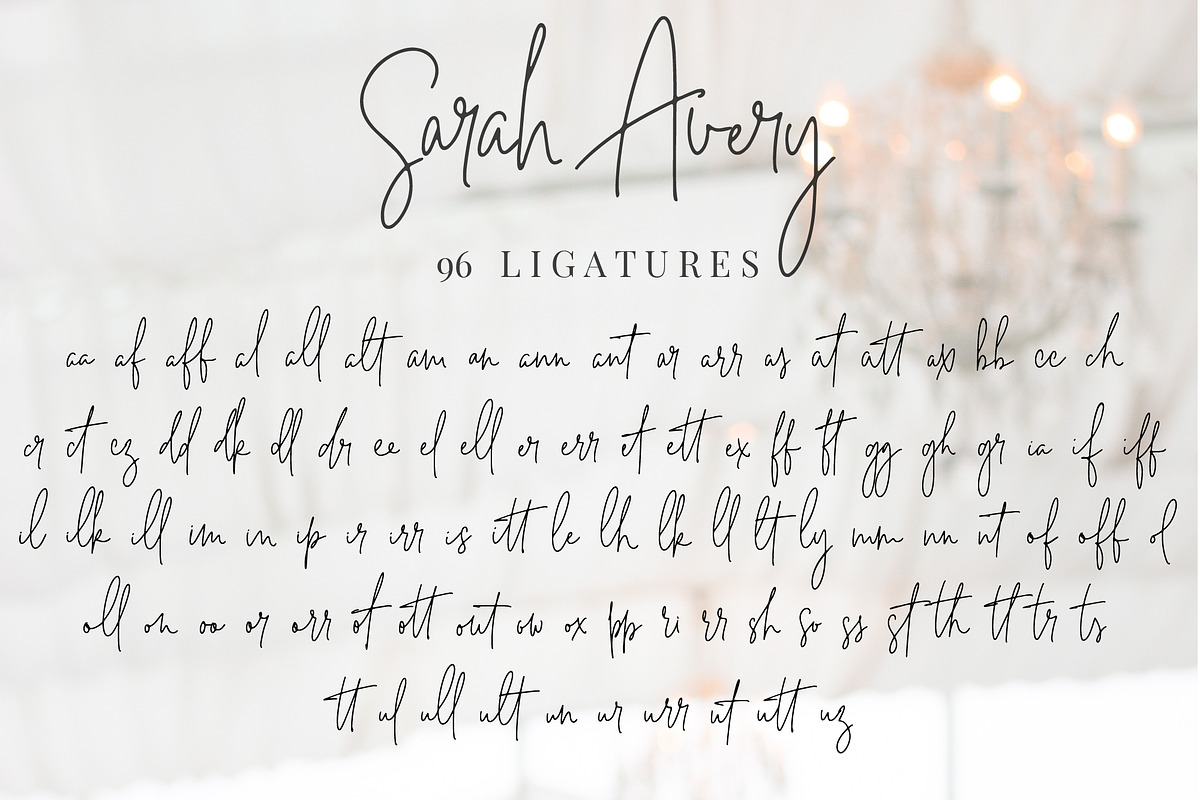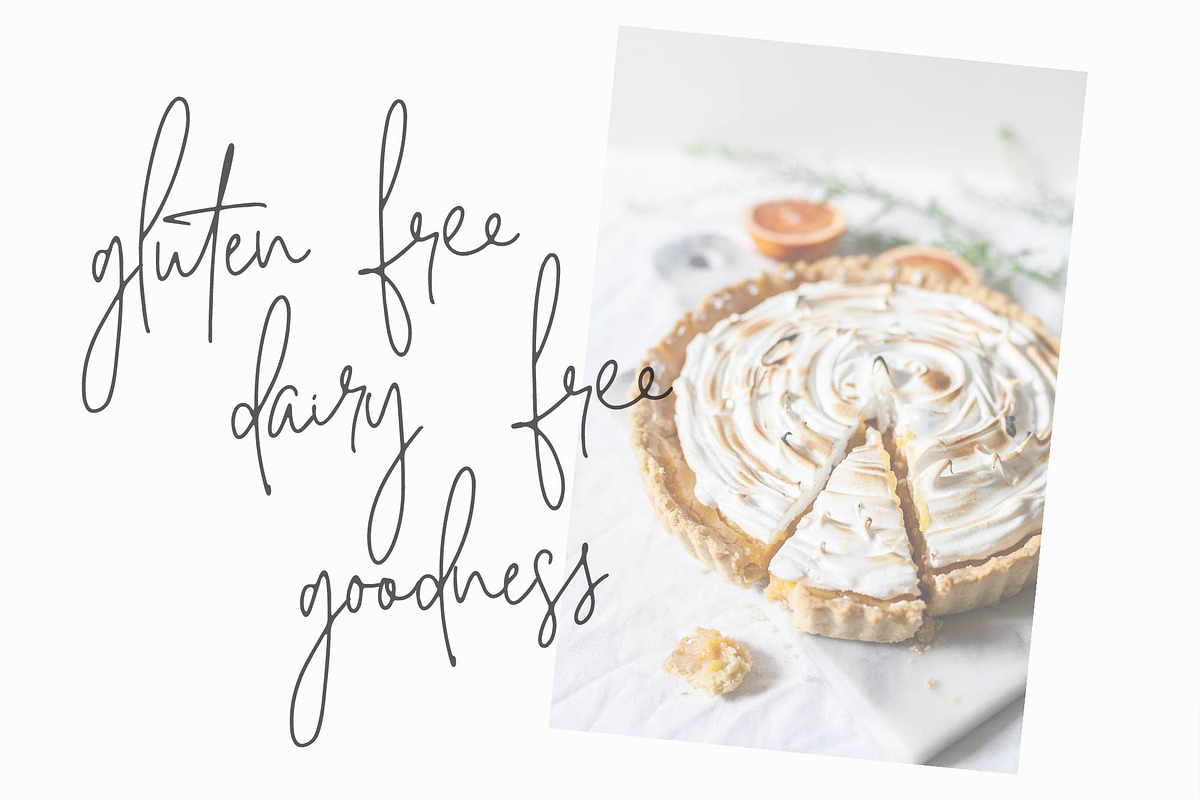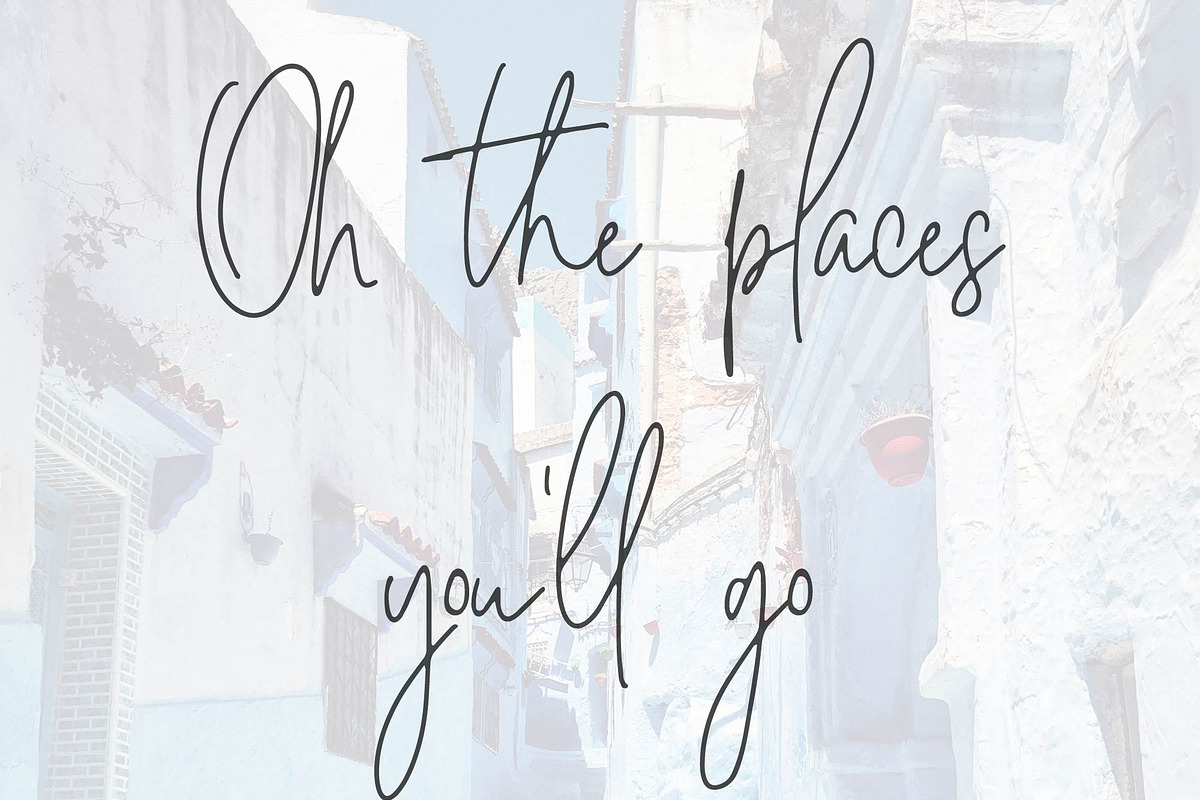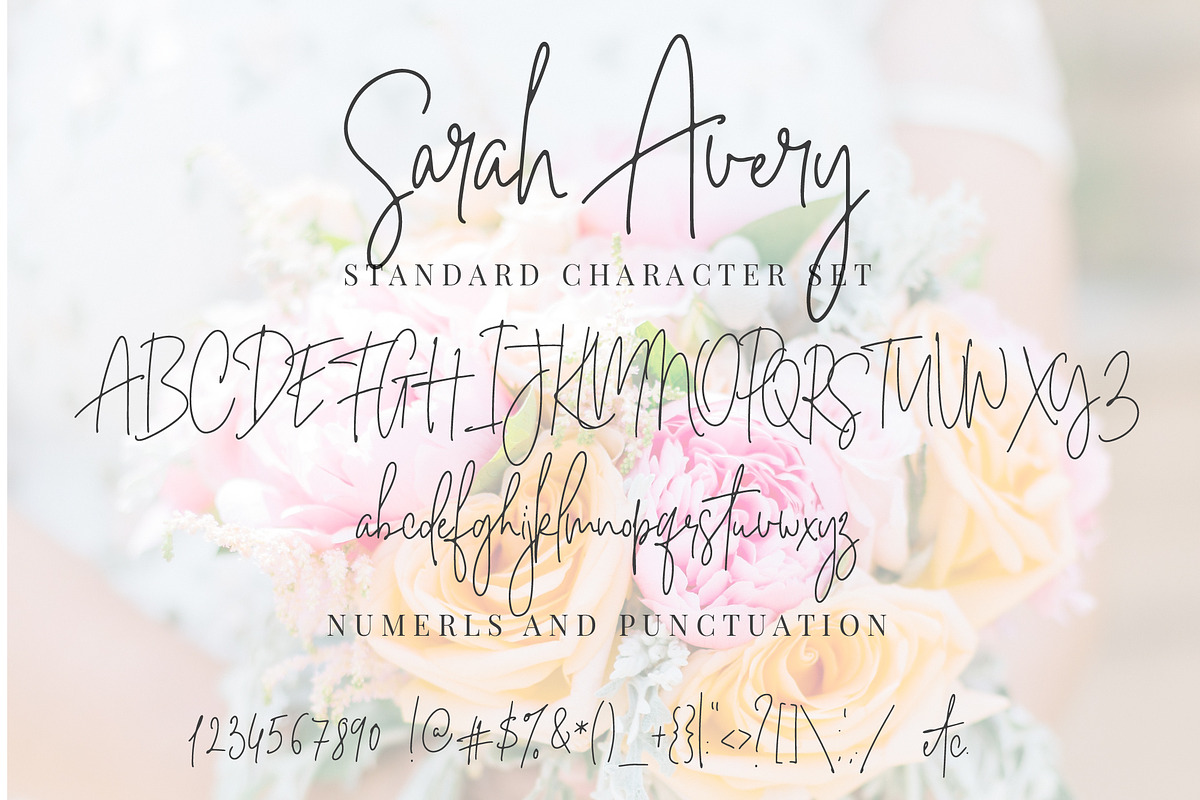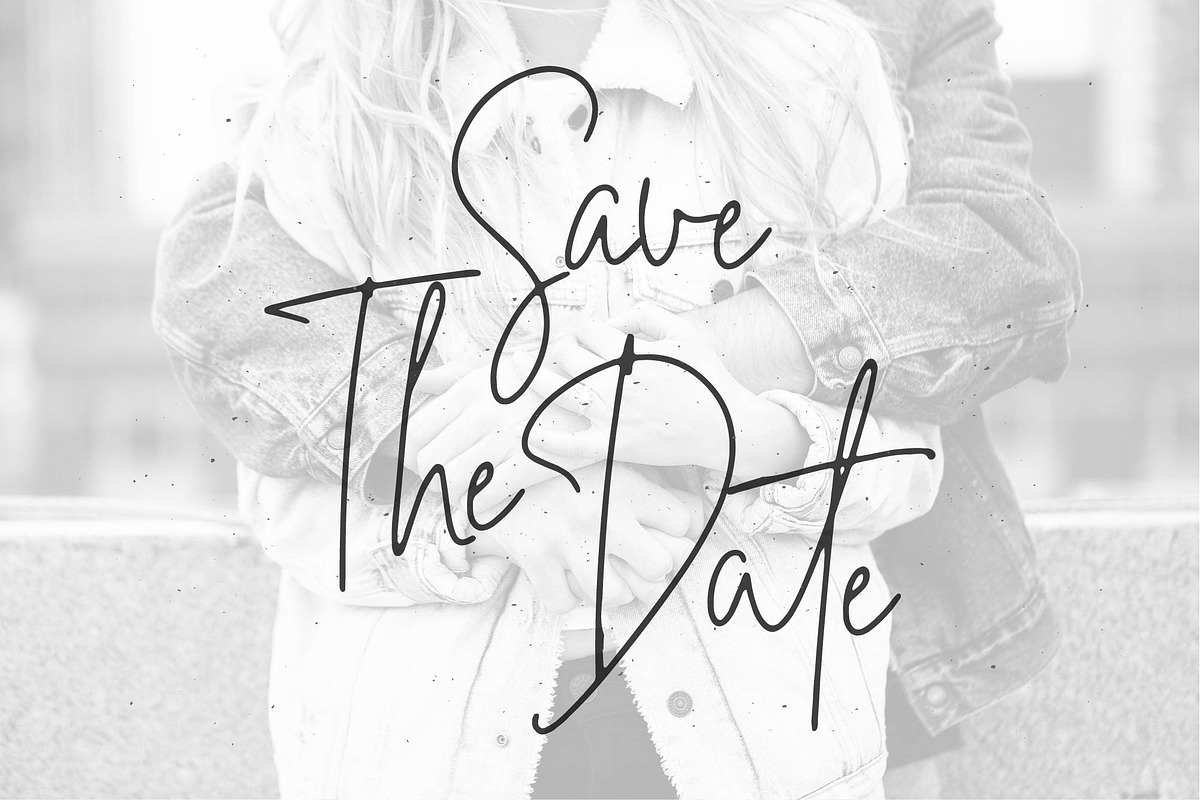
Sarah Avery -Modern Script
Introducing the new Sarah Avery Script Font is a gorgeous font with 96 trendy ligatures, though letters in this font already connect beautifully
Add a hand written touch to your magazine layouts, lettering, logo designs, quotes, packaging, social media, branding, wedding invitations and cards.
Sarah Avery Script Font comes with built in OpenType Features, that means the ligatures are automatic.
No special software required to switch between ligatures and standard letters.
Sarah Avery Script Font will include most of the European languages pretty soon